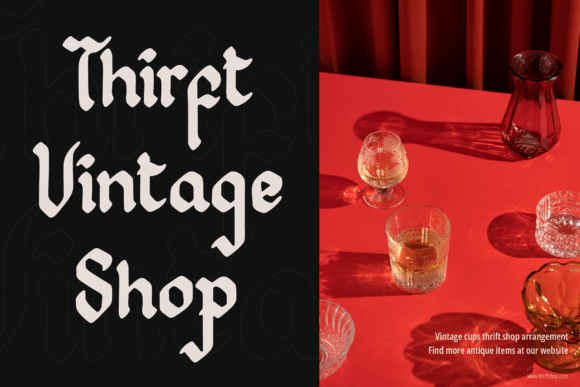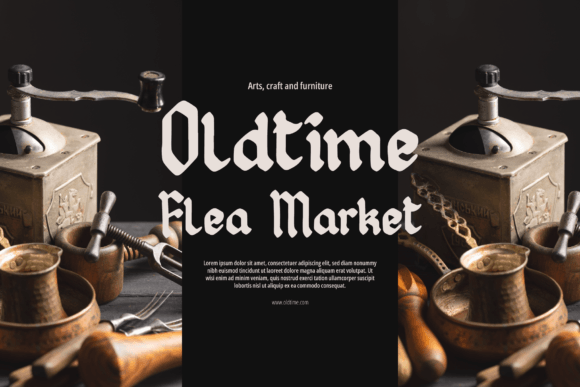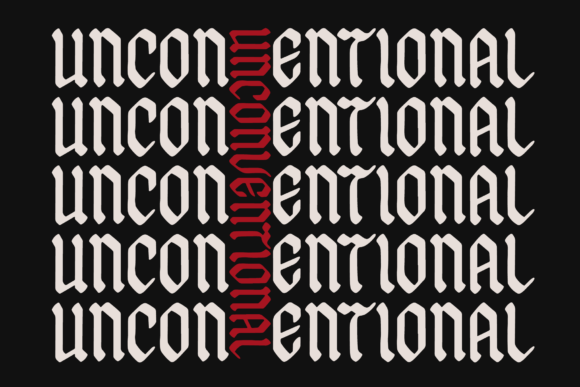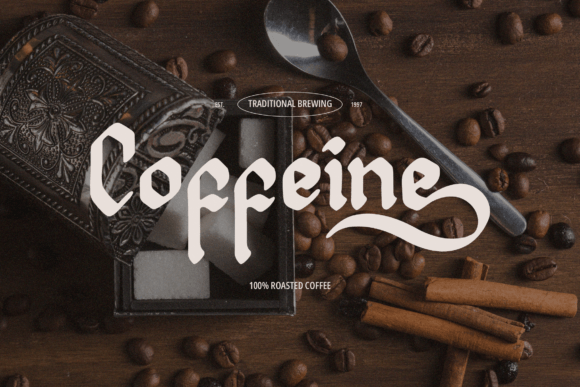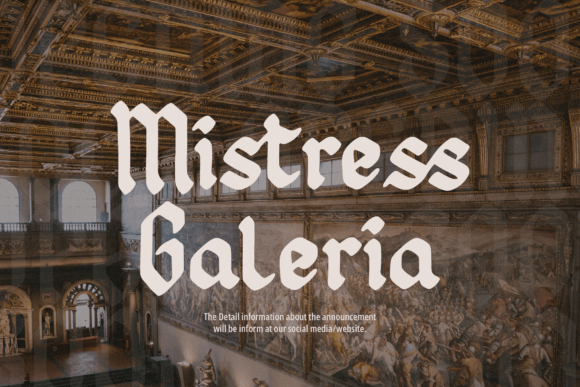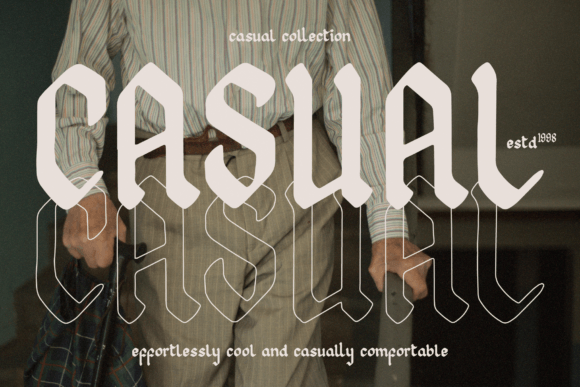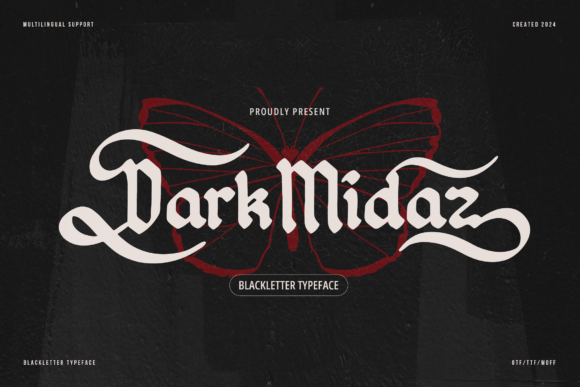
Unleash the Power of Dark Midaz Font: Elevate Your Designs with Elegance and Drama
In the world of typography, few fonts manage to capture the essence of classic elegance and dramatic flair as effectively as the Dark Midaz Font. This bold and stylish blackletter typeface has been turning heads with its sharp edges and unique curves, making it a go-to choice for designers and crafters looking to add a touch of sophistication to their projects. Whether you’re working on posters, invitations, branding, or any other design endeavor, Dark Midaz is sure to make a lasting impression.
The Distinctive Characteristics of Dark Midaz Font
Dark Midaz stands out in the realm of typography due to its distinctive characteristics. The letters are thick and ornate, boasting sharp edges that give the font its dramatic look. The unique curves add a layer of elegance, making it perfect for designs that require a bit of flair. This combination of boldness and finesse ensures that Dark Midaz is not only visually striking but also highly legible, even at larger sizes.
The versatility of Dark Midaz Font makes it an excellent choice for a wide range of design projects. Here are a few ways you can utilize this stunning typeface:
- Posters: Create eye-catching posters for events, advertisements, or informational purposes. The bold nature of Dark Midaz ensures that your message will stand out.
- Invitations: Add a touch of elegance to your invitations for weddings, parties, or formal events. The classic look of Dark Midaz lends itself perfectly to creating memorable and stylish invitations.
- Branding: Elevate your brand’s identity with a font that exudes sophistication and drama. Dark Midaz can be used for logos, packaging, or any other branding materials where you want to make a strong impression.
Why Designers and Crafters Love Dark Midaz Font
Designers and crafters have fallen in love with Dark Midaz for several reasons:
- Ease of Use: Despite its complex appearance, Dark Midaz is surprisingly easy to use, even for those who are new to design. Its clear and readable letters make it a joy to work with.
- Customization: Dark Midaz offers plenty of room for customization. Experiment with different colors, sizes, and design elements to make your project truly unique.
- Timeless Appeal: Unlike trends that come and go, Dark Midaz has a timeless appeal that ensures your designs will remain stylish for years to come.
Tips for Getting the Most Out of Dark Midaz Font
To truly harness the power of Dark Midaz, consider the following tips:
- Pair with Simpler Fonts: For optimal readability, pair Dark Midaz with simpler fonts for body text. This contrast will make your design more dynamic and easier to read.
- Experiment with Colors: While Dark Midaz looks stunning in black, don’t be afraid to experiment with different colors. Metallic tones, deep blues, and rich reds can add an extra layer of elegance to your designs.
- Play with Sizes: Take advantage of Dark Midaz’s versatility by varying the size of the text. Larger headings can make a dramatic impact, while smaller text can add subtlety and detail.
Dark Midaz Font is a powerful tool in any designer’s arsenal. Its unique blend of boldness, elegance, and readability makes it perfect for a wide range of projects. Whether you’re a seasoned designer or a crafty DIY enthusiast, Dark Midaz offers the perfect combination of style and functionality. So why wait? Dive into the world of Dark Midaz and elevate your designs to new heights of elegance and drama.